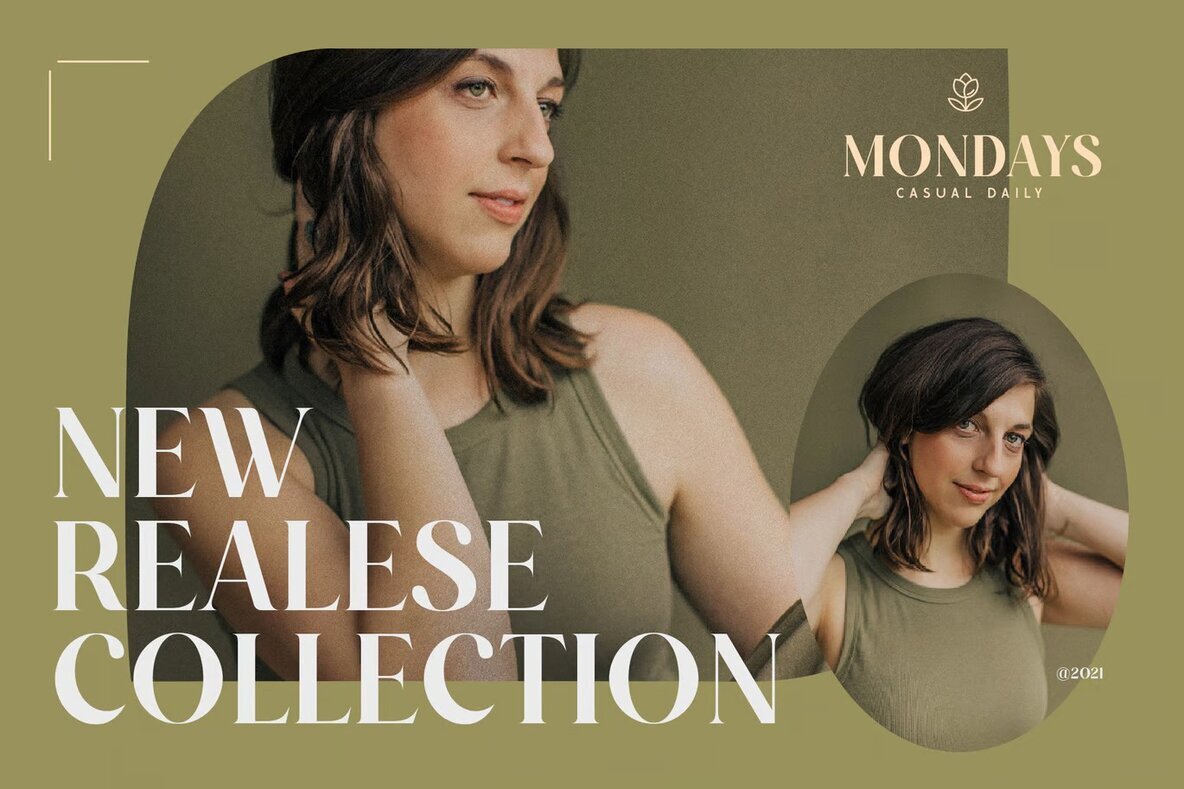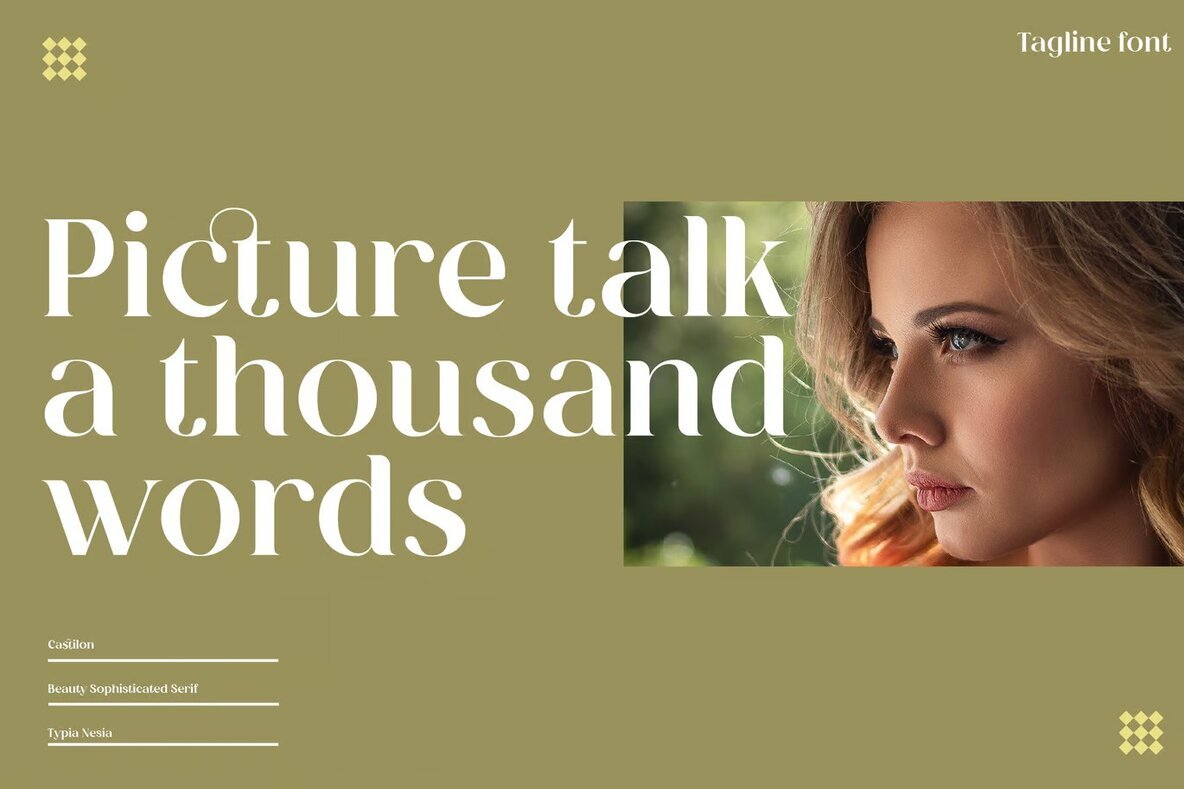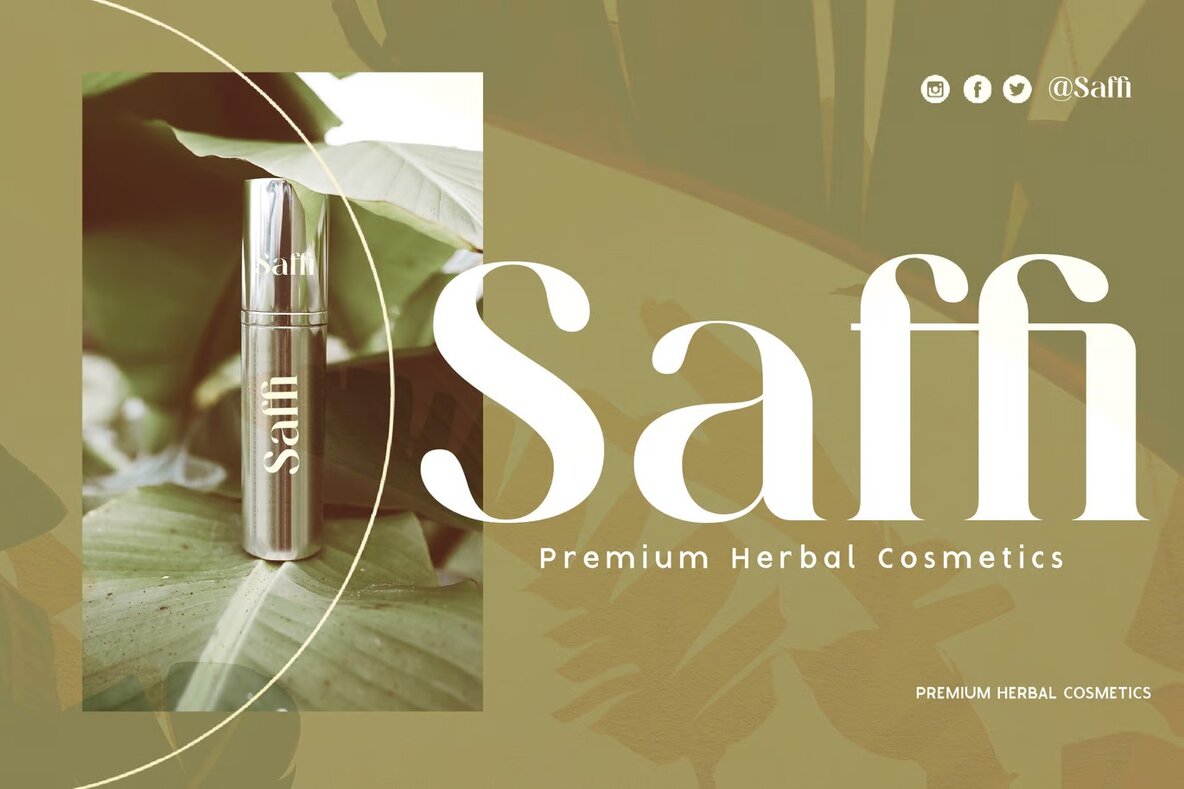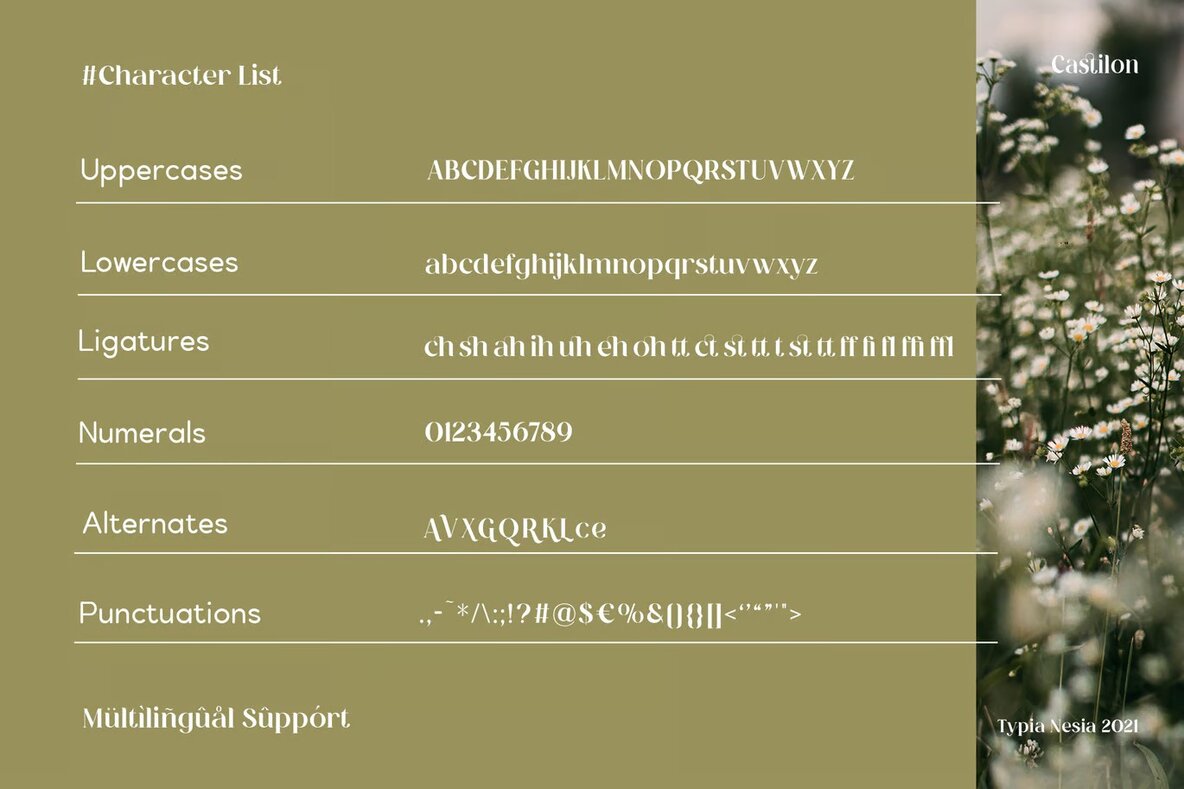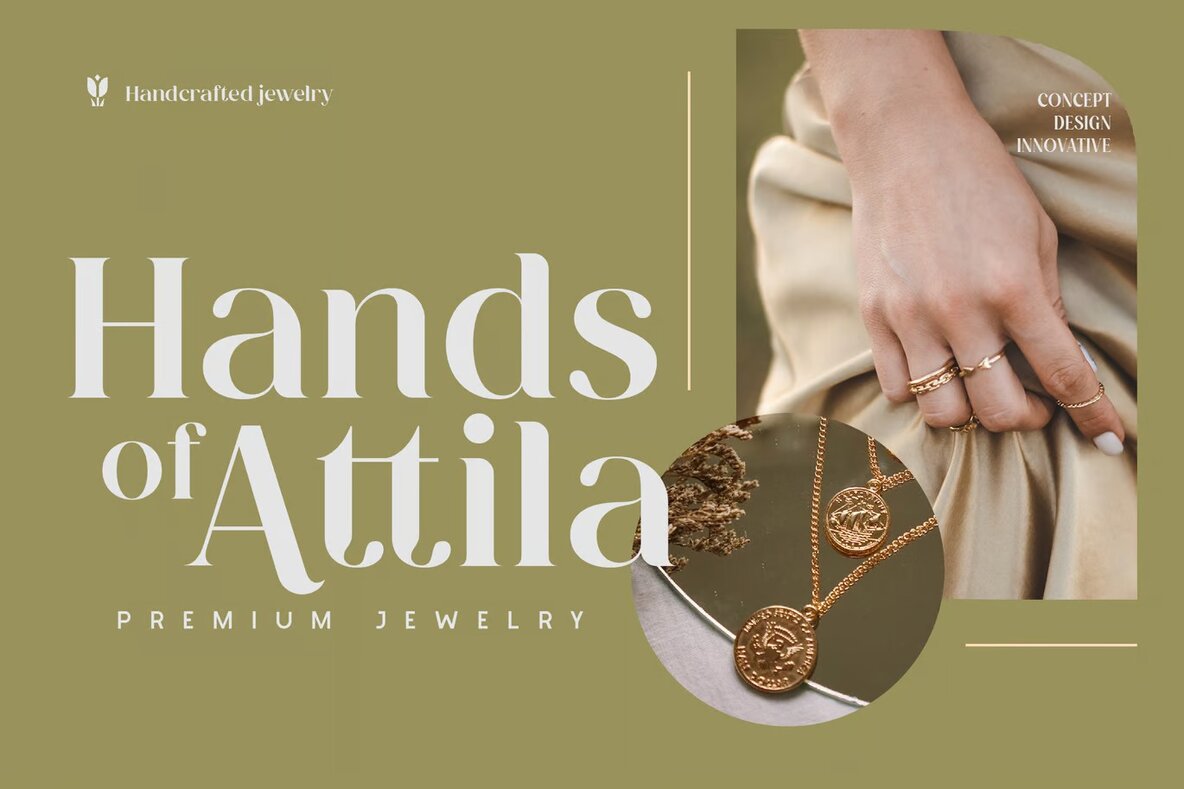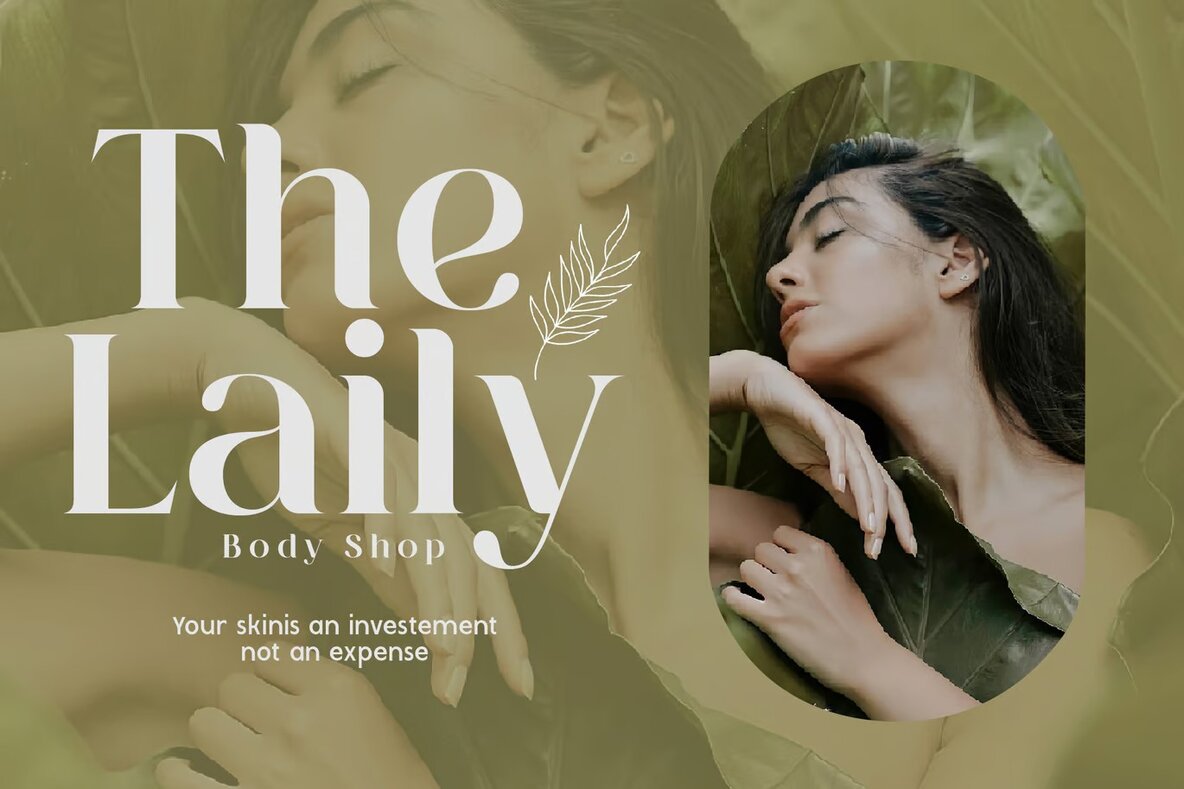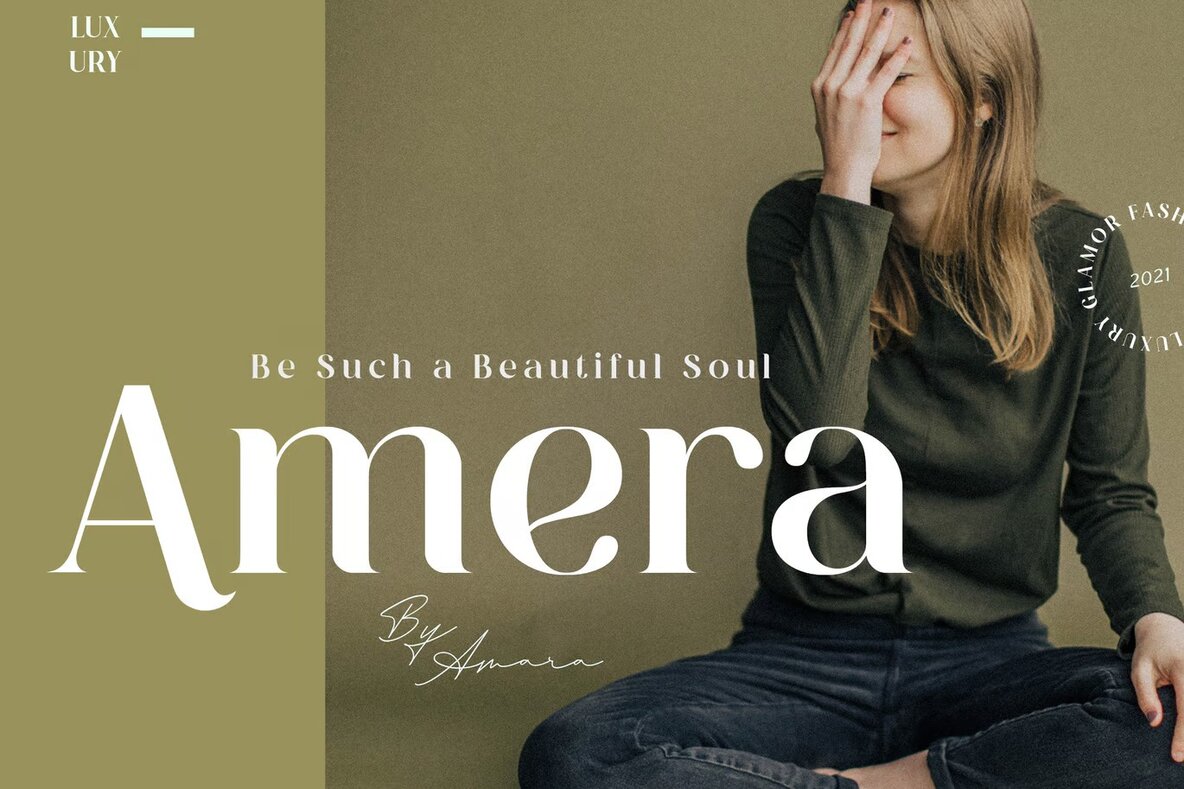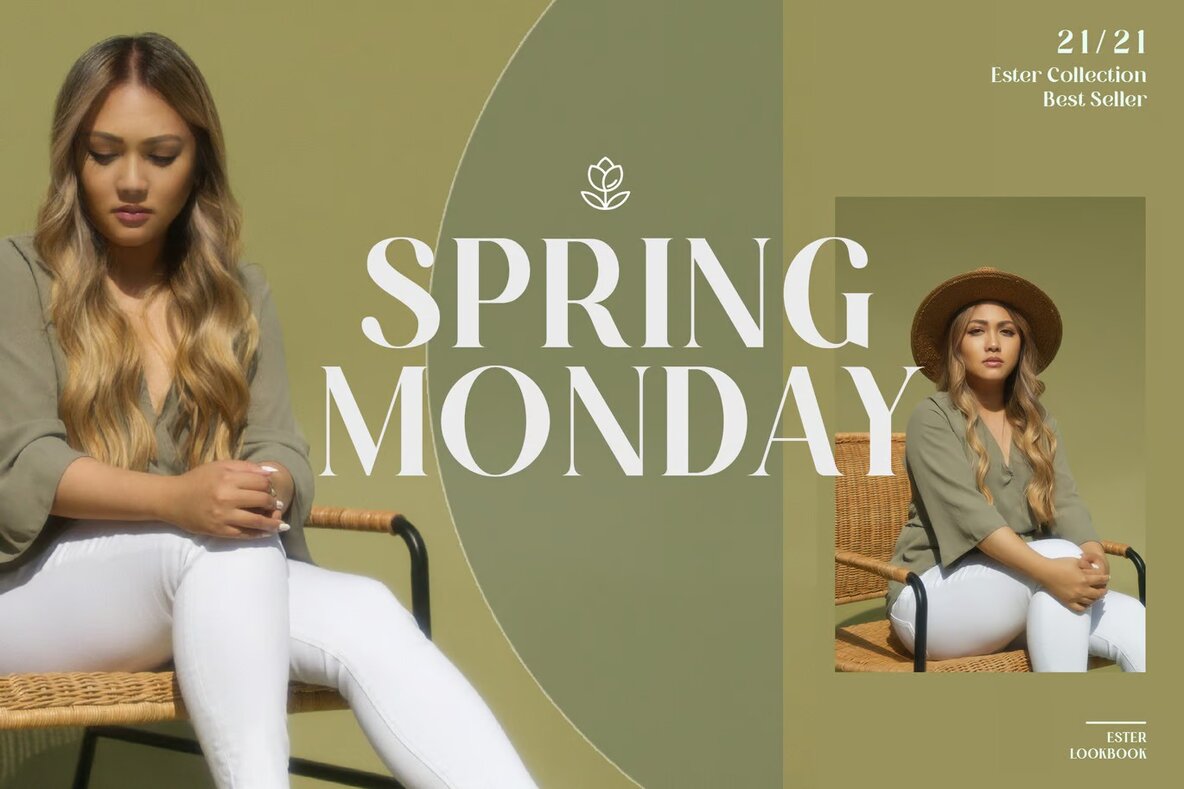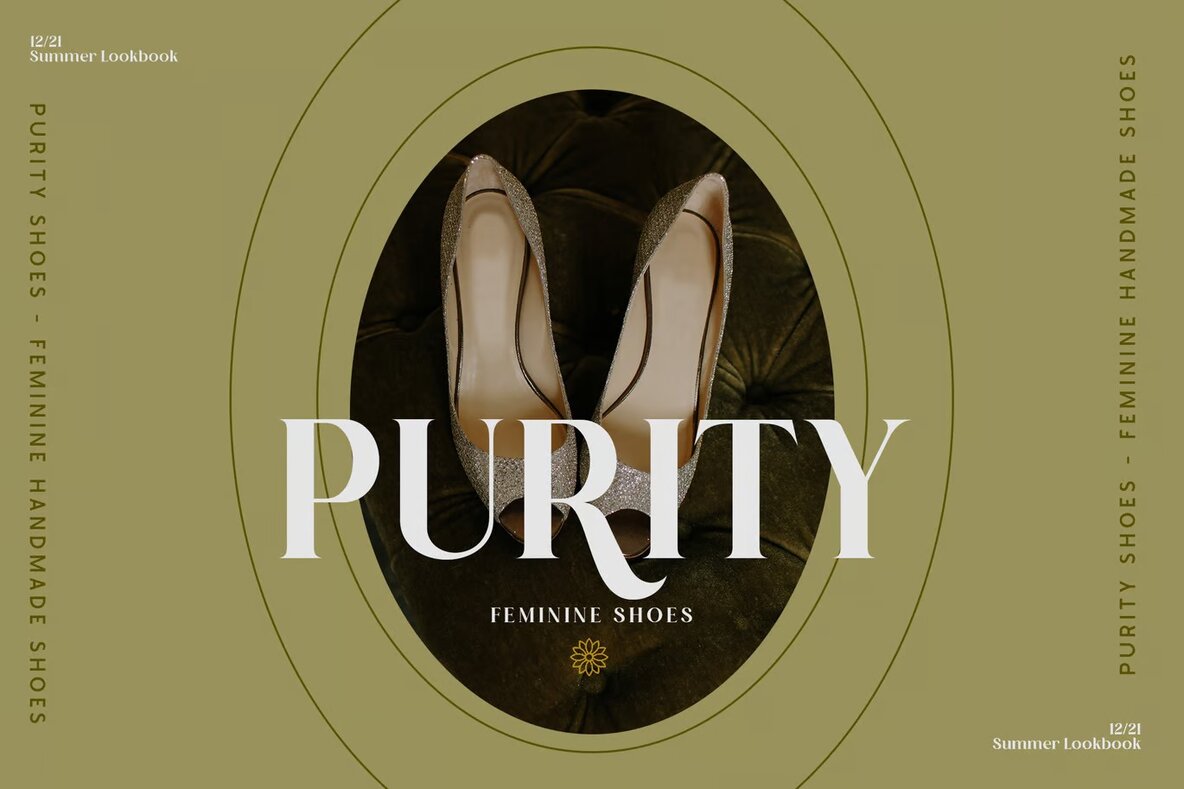
Castilon Font
Castilon Regular
Castilon offers a sophisticated serif font that embodies elegance and retro flair, making it an ideal choice for bold display projects. With its array of alternates and ligatures, this font allows for creative versatility, enabling you to craft impeccable typography. The elegant style of Castilon is perfectly suited for a range of upscale applications, including luxury logos, branding, and stylish editorial designs.
Whether you're designing for a women's magazine, a cosmetic brand, or a high-fashion promotional piece, Castilon provides the aesthetic precision necessary for a premium visual impact. Its graceful italic forms lend themselves beautifully to art galleries, museums, and architectural themes, while also shining in boutique branding and modern stationery design. Enhance home decor, curate impactful book and cover titles, and create memorable invitations for special events with Castilon's striking sophistication.